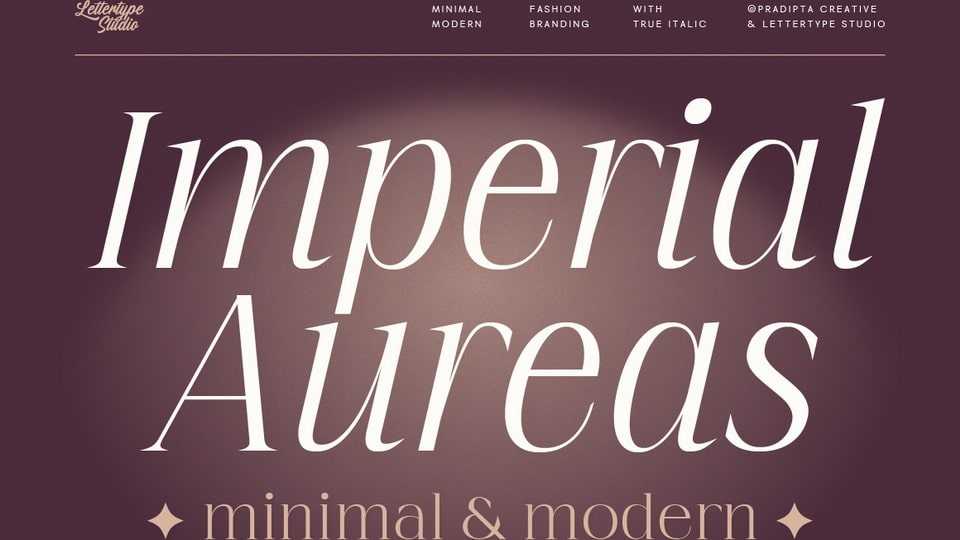
Download Imperial Aureas font, a minimal modern serif that balances elegance with simplicity. Designed with tall proportions and refined details, it delivers a timeless editorial feel while staying versatile for branding across industries.
Designer: Lettertype Studio